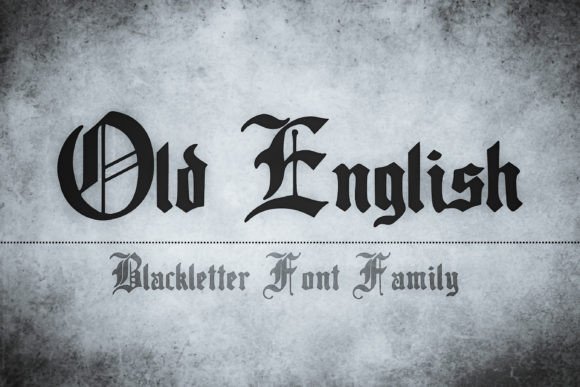
Introducing the Old English Font, a magnificent blackletter typeface that will transport you to the world of ancient manuscripts and medieval literature. This font is a creation of The Tenacious Type Studio and it exudes a sense of history and tradition that will give your projects a unique edge.
If you're looking for a font that will give your designs a touch of class and sophistication, the Old English Font is the perfect choice. This font has a timeless quality that will never go out of style and will add depth and character to any project. Whether you're designing a logo, a poster, or a book cover, this font will make your text stand out and grab attention.
One of the key features of the Old English Font is its versatility. Despite its medieval roots, this font is suitable for a wide range of applications. It works equally well for modern designs, as it does for historical-themed projects. With its elegant curves and sharp edges, the Old English Font is sure to impress your clients and customers.
Another advantage of this font is its ease of use. It comes in a variety of weights and styles, making it perfect for any design project. Whether you're creating a bold headline or a delicate script, the Old English Font has you covered.